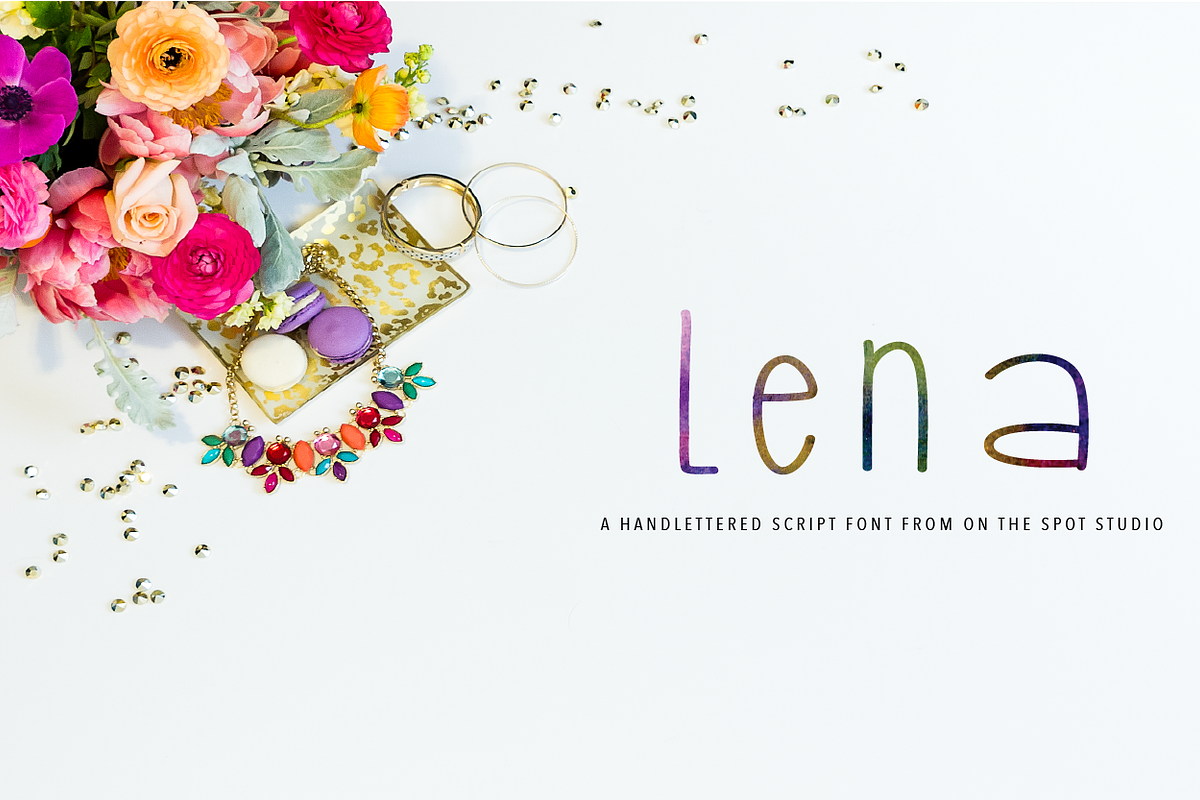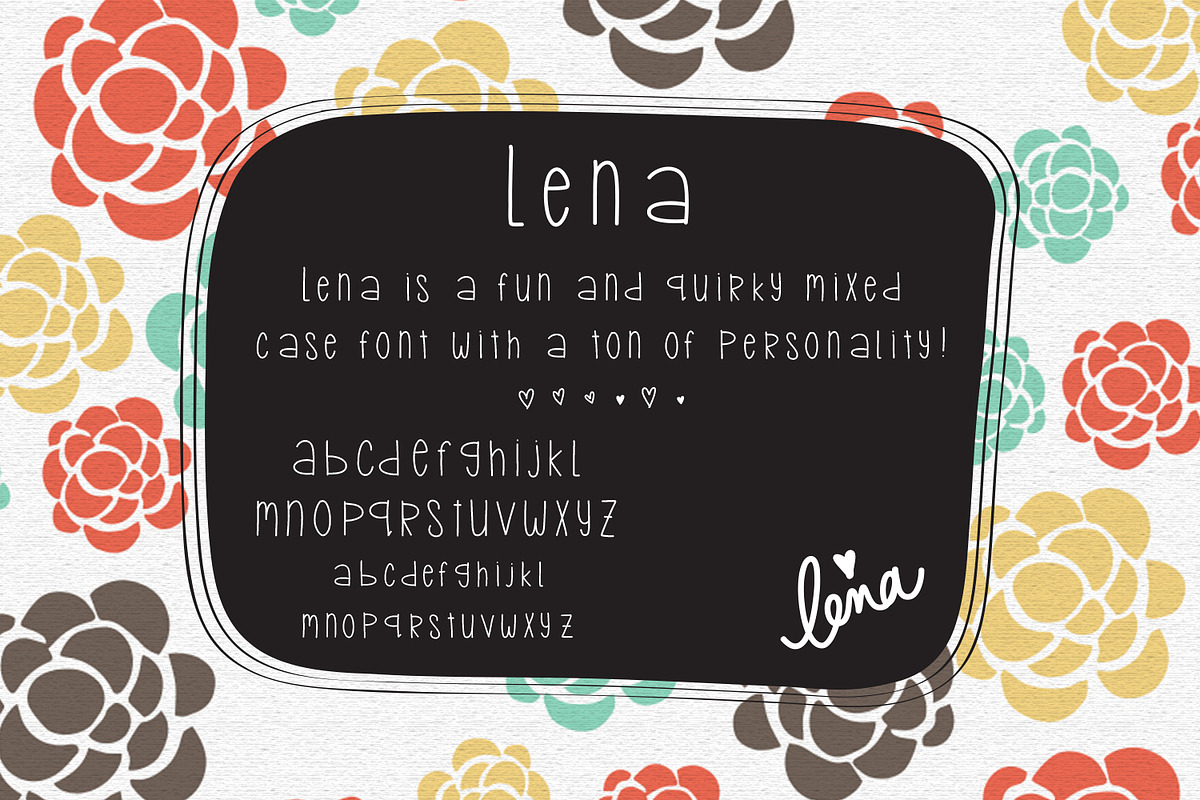
Lena - Handlettered Font
Lena - Handlettered Font by OnTheSpotStudio is a font selected for branding, posters, packaging, typography.
- Includes upper and lower case along with some fun hearts and swirlies to give your design just that little bit more it needs to make it perf
Why Lena - Handlettered Font is worth a look
Lena - Handlettered Font by OnTheSpotStudio fits naturally into Branding, posters, packaging, typography.